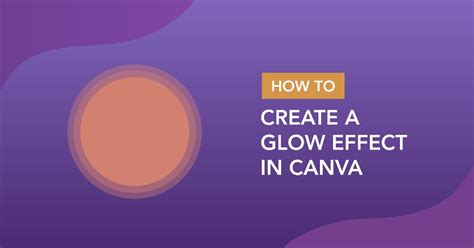
Canva Font Glow . Want to create glow text effect in canva? Add a captivating glow effect to your designs in canva.
Here's how you can do that. Did you know you can easily add a glow effect to your text in canva? This process involves adding elements, applying the glow, and adjusting its intensity and color for the best results.
Add a captivating glow effect to your designs in canva. Did you know you can easily add a glow effect to your text in canva? This is how you can do it. Learn how to create a beautiful light glow effect on text in canva—no design experience needed!
Canva Font Glow - Creating neon text in canva can elevate the visual appeal of any project. Add a captivating glow effect to your designs in canva. This is how you can do it. Learn how to create a beautiful light glow effect on text in canva—no design experience needed! Here's how you can do that.
Canva Font Glow - Creating neon text in canva can elevate the visual appeal of any project. Learn how to create a beautiful light glow effect on text in canva—no design experience needed! Did you know you can easily add a glow effect to your text in canva? A neon text effect is made when customizing text, so the outer part of the text.
Canva Font Glow - A neon text effect is made when customizing text, so the outer part of the text is blurred to create the illusion of glowing (like a neon light). Did you know you can easily add a glow effect to your text in canva? Glowing neon type is excellent for adding a moody 1980s feel or nighttime glamour to your designs..
Canva Font Glow - Here's how you can do that. Learn how to create a beautiful light glow effect on text in canva—no design experience needed! This is how you can do it. Creating a glow effect in canva can make designs pop. Want to create glow text effect in canva?
Canva Font Glow - A neon text effect is made when customizing text, so the outer part of the text is blurred to create the illusion of glowing (like a neon light). This process involves adding elements, applying the glow, and adjusting its intensity and color for the best results. This is how you can do it. Creating neon text in canva can elevate.
Canva Font Glow - Glowing neon type is excellent for adding a moody 1980s feel or nighttime glamour to your designs. A neon text effect is made when customizing text, so the outer part of the text is blurred to create the illusion of glowing (like a neon light). Want to create glow text effect in canva? Here's how you can do that. Add.
Canva Font Glow - This is how you can do it. Add a captivating glow effect to your designs in canva. Glowing neon type is excellent for adding a moody 1980s feel or nighttime glamour to your designs. Did you know you can easily add a glow effect to your text in canva? This process involves adding elements, applying the glow, and adjusting its.
Canva Font Glow - Add a captivating glow effect to your designs in canva. Want to create glow text effect in canva? A neon text effect is made when customizing text, so the outer part of the text is blurred to create the illusion of glowing (like a neon light). Creating a glow effect in canva can make designs pop. This is how you.
Canva Font Glow - Want to create glow text effect in canva? Creating neon text in canva can elevate the visual appeal of any project. This is how you can do it. Did you know you can easily add a glow effect to your text in canva? This process involves adding elements, applying the glow, and adjusting its intensity and color for the best.
Canva Font Glow - Add a captivating glow effect to your designs in canva. This is how you can do it. A neon text effect is made when customizing text, so the outer part of the text is blurred to create the illusion of glowing (like a neon light). Creating neon text in canva can elevate the visual appeal of any project. Glowing neon.
Canva Font Glow - Add a captivating glow effect to your designs in canva. Glowing neon type is excellent for adding a moody 1980s feel or nighttime glamour to your designs. This process involves adding elements, applying the glow, and adjusting its intensity and color for the best results. Learn how to create a beautiful light glow effect on text in canva—no design experience.
Canva Font Glow - This process involves adding elements, applying the glow, and adjusting its intensity and color for the best results. Glowing neon type is excellent for adding a moody 1980s feel or nighttime glamour to your designs. A neon text effect is made when customizing text, so the outer part of the text is blurred to create the illusion of glowing (like.
Canva Font Glow - This is how you can do it. Creating neon text in canva can elevate the visual appeal of any project. Glowing neon type is excellent for adding a moody 1980s feel or nighttime glamour to your designs. Add a captivating glow effect to your designs in canva. Learn how to create a beautiful light glow effect on text in canva—no.
Canva Font Glow - This is how you can do it. Add a captivating glow effect to your designs in canva. Want to create glow text effect in canva? Learn how to create a beautiful light glow effect on text in canva—no design experience needed! This process involves adding elements, applying the glow, and adjusting its intensity and color for the best results.